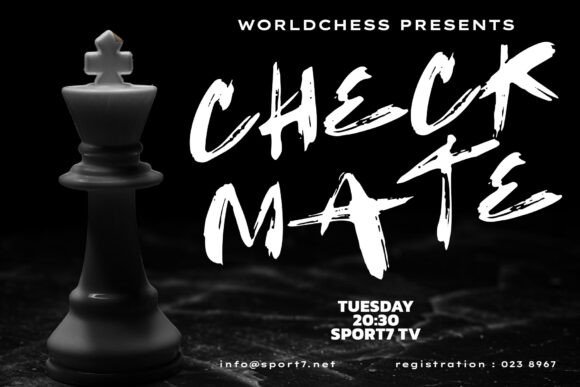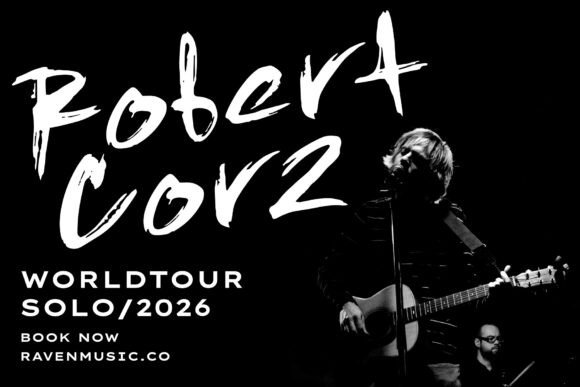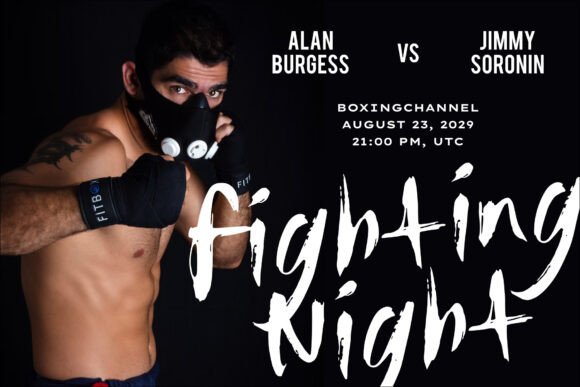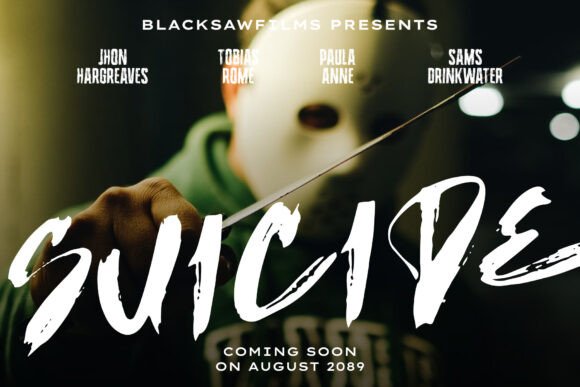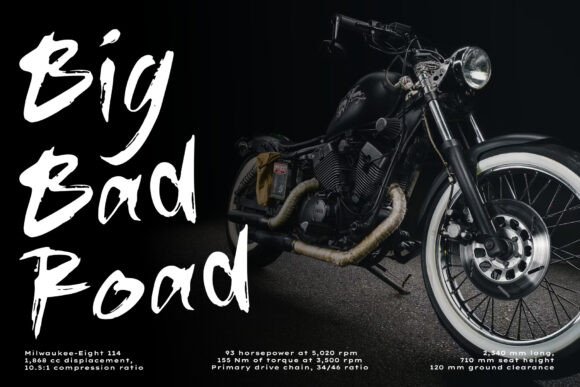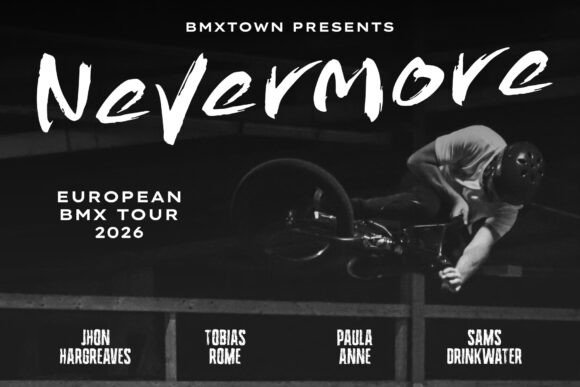
Introducing Badfool – The Ultimate Dry Brush Scribble Font
Are you tired of using the same old fonts for your designs? Look no further! We’re excited to introduce Badfool, a dry handwritten scribble brush font that’s sure to add a touch of personality to your creations. With its unique texture and detailed design, Badfool is perfect for designers and crafters looking to add a personal touch to their work.
What is Badfool Font?
Badfool is a dry brush script font that mimics the look of handwritten scribbles. Its texture is incredibly detailed, giving it a realistic and organic feel that’s perfect for a variety of design applications. Whether you’re looking to create a logo, brand product, or simply add some text to a background image, Badfool is the perfect choice.
Key Features of Badfool Font
- Uppercase and Lowercase Letters: Badfool font comes with both uppercase and lowercase letters, giving you the flexibility to create a wide range of designs.
- Punctuation and Numerals: In addition to letters, Badfool also includes punctuation marks and numerals, making it a comprehensive font that can be used for a variety of purposes.
- Dry Brush Texture: The unique dry brush texture of Badfool gives it a distinctive look that’s perfect for creating handwritten-style designs.
- Highly Detailed: The texture of Badfool is incredibly detailed, making it perfect for use in high-resolution designs.
Uses for Badfool Font
Badfool is an incredibly versatile font that can be used for a wide range of design applications. Here are just a few ideas to get you started:
- Logos: Badfool’s unique texture and handwritten style make it perfect for creating logos that stand out from the crowd.
- Product Branding: Add a personal touch to your product branding with Badfool’s distinctive dry brush texture.
- Printable Templates: Create custom printable templates for planners, journals, and more using Badfool.
- Posters and Flyers: Use Badfool to add a touch of personality to your posters and flyers.
- T-Shirts and Apparel: Badfool is perfect for creating custom designs for t-shirts, hoodies, and other apparel.
- Text Overlay: Use Badfool to add text to background images, creating stunning visual effects.
Why Choose Badfool Font?
With so many fonts available, why choose Badfool? Here are just a few reasons why Badfool stands out from the crowd:
- Unique Texture: Badfool’s dry brush texture is unlike any other font on the market, giving you a unique look that’s sure to stand out.
- Highly Versatile: Badfool can be used for a wide range of design applications, making it a great addition to any designer’s toolkit.
- Easy to Use: Badfool is incredibly easy to use, with a simple and intuitive design that makes it easy to get started.
Whether you’re a seasoned designer or just starting out, Badfool is a great addition to any design toolkit. Its unique texture and versatility make it perfect for a wide range of design applications, from logos and product branding to printable templates and text overlay. So why not give Badfool a try and see the difference it can make in your designs?